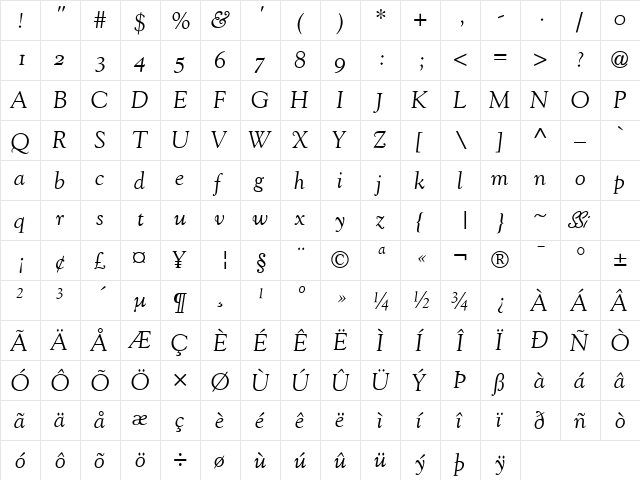
Goudy OldStyle SSi Italic Old Style Figures Font Preview
Goudy OldStyle SSi Italic Old Style Figures
Design Context for Goudy OldStyle SSi Typeface
Goudy OldStyle SSi carries the refined structure of traditional serif typography, with bracketed terminals and considered proportions that communicate credibility and craft. Its italic angle brings a sense of urgency and motion to the letterforms.